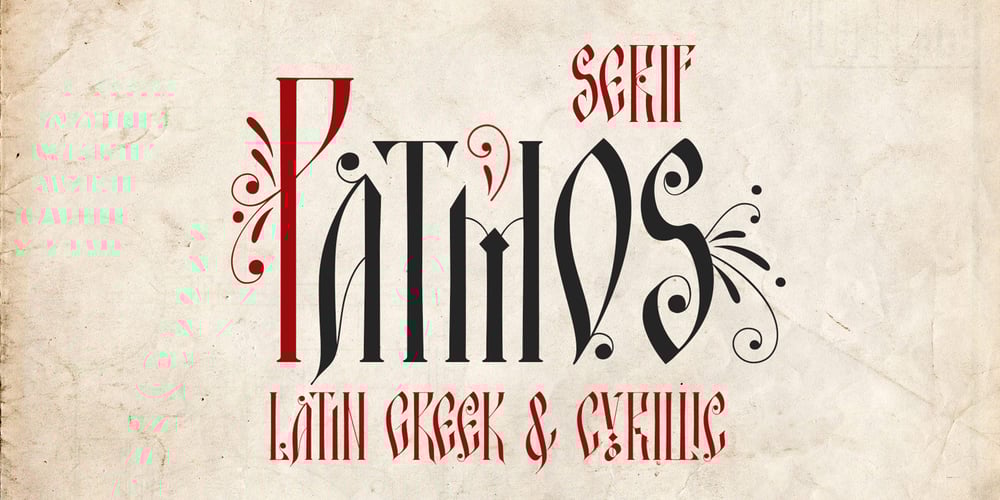
Patmos Serif Font Family was designed by Anastasia Dimitriadi and published by DimitriAna. Patmos Serif contains 1 styles and family package options. Patmos Serif is a hand drawn serif font, inspired by the art of the cyrillic calligraphy, as well as the script of the Greek Orthodox art. The font contains Latin, Greek and Cyrillic alphabets and it is delivered in Opentype and Truetype format. It supports Central, Eastern, Western European, Baltic, Turkish, Greek and Russian languages. Patmos Serif has a variety of stylistic alternates and classes, titling altrenates, discretionary and standard ligatures and it is fully unicode-mapped (PUA encoded). The standard ligatures of the font are 4 decorative ornaments, that you may add at the end of a word and they match perfectly with the titling alternates. All you have to do is to make sure that ‘standard ligatures’ are activated in your application and then type “d” and a number from 1 to 4.